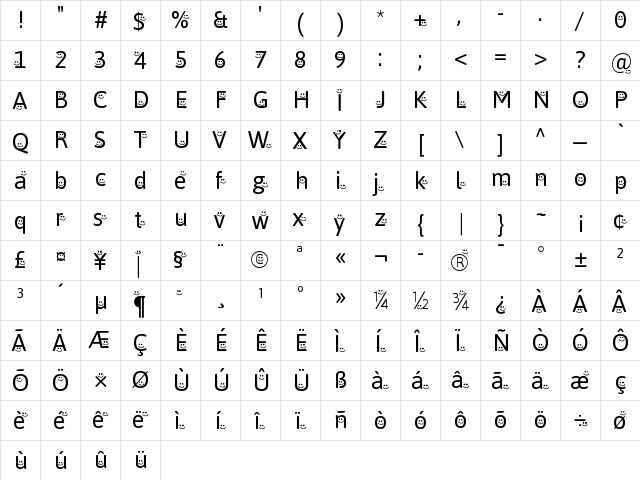
WLM Smileyface Regular
Design Context for WLM Smileyface Typeface
WLM Smileyface takes a measured approach to typography — its balanced proportions and neutral character make it a reliable workhorse for both digital and print work.